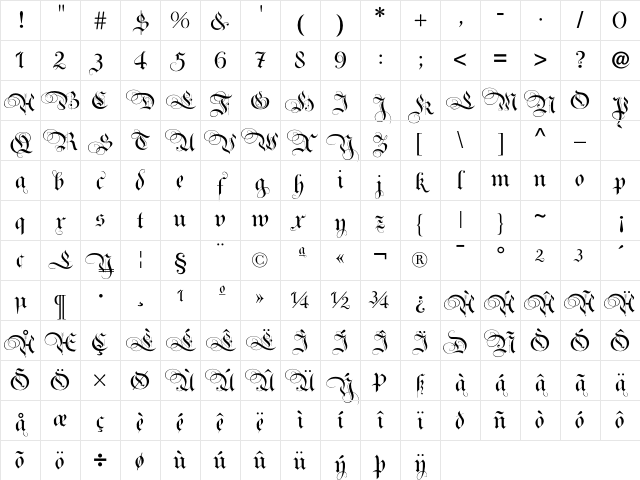
RoyalBavarian Regular Free Font
RoyalBavarian Regular
Foundry: Gert Wiescher, Wiescher-Design, Munich, Germany
Designer: Gert Wiescher
Design Context for RoyalBavarian
RoyalBavarian is a composed and adaptable typeface that performs quietly and consistently across a wide range of design contexts.